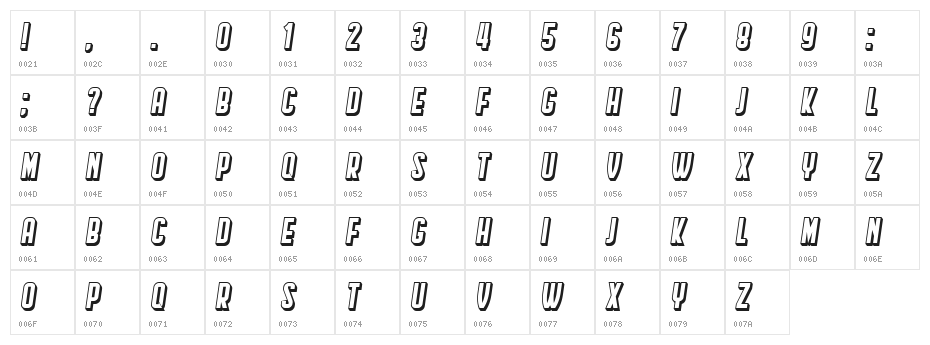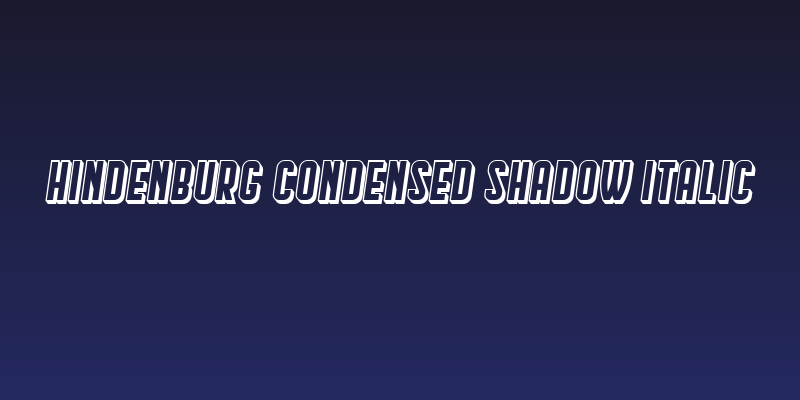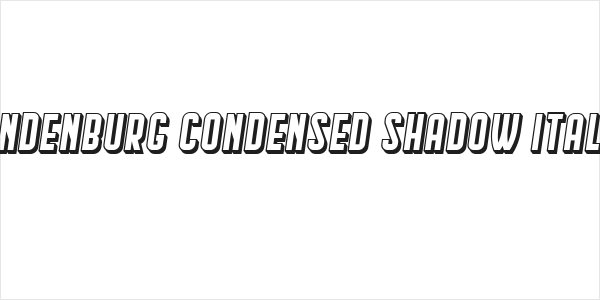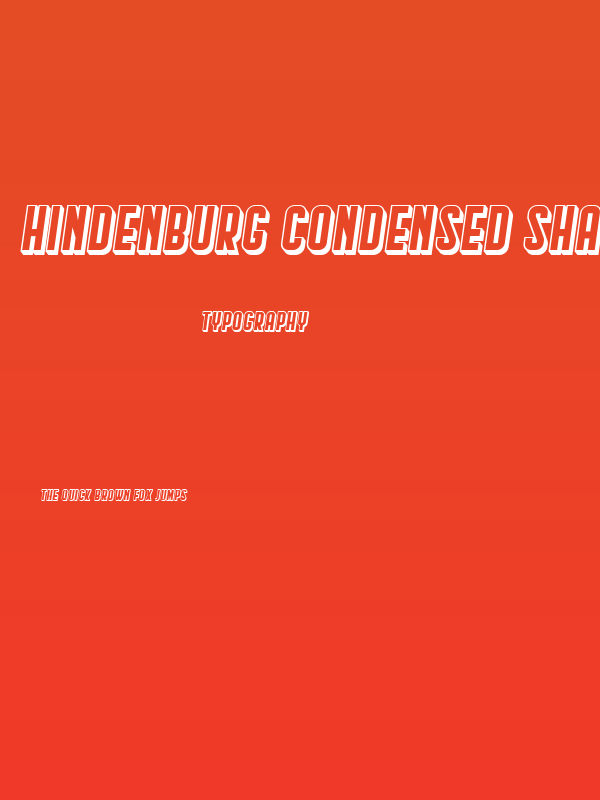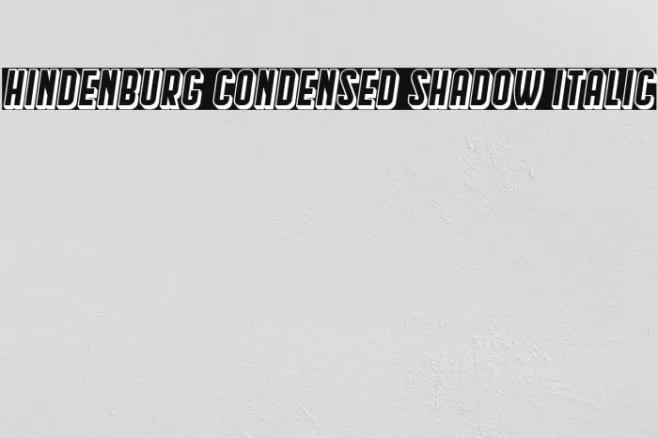
Hindenburg Condensed Shadow Italic Font
Hindenburg Condensed Shadow Italic Description
This font features a bold, condensed style with a distinct shadow effect that adds depth and dimension to the characters. The italicized slant gives it a dynamic and forward-moving appearance, making it stand out in any design. The uppercase letters are prominent and commanding, while the numbers and limited punctuation maintain the same bold characteristics. The shadow effect is consistent throughout, enhancing the overall visual impact. This font is ideal for creating eye-catching headlines or titles that require a strong presence.
| Proposed Projects | Ideal for poster designs, branding materials, sports team logos, and dynamic advertisements. |